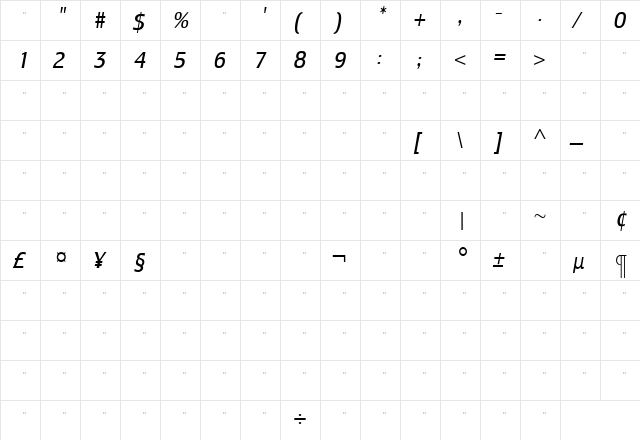
LesmoreBookCondensedItalicTab Roman Font Preview
Design Context for LesmoreBookCondensedItalicTab Typeface
LesmoreBookCondensedItalicTab is a composed and adaptable typeface that performs quietly and consistently across a wide range of design contexts. Its italic angle brings a sense of urgency and motion to the letterforms. Its narrow stance lets it pack a punch even in space-constrained designs.
Pro Tip: Try LesmoreBookCondensedItalicTab for annotation and caption copy alongside an upright companion — the contrast in angle creates a dynamic but ordered typographic system.